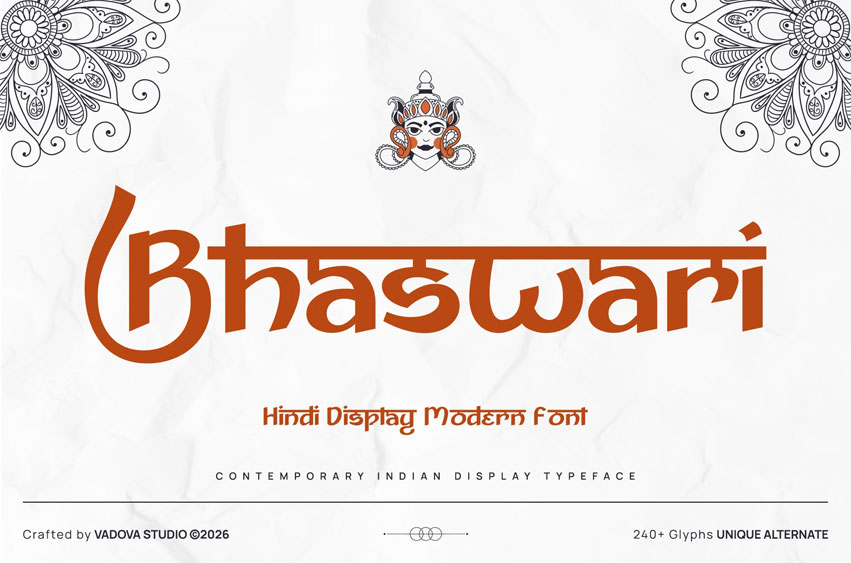
Bhaswari Font is a contemporary Hindi display typeface inspired by traditional Indian letterforms and refined with a modern typographic approach. Designed to balance cultural authenticity with clean structural clarity, The typeface includes uppercase, lowercase, alternates, making it versatile for both Hindi-focused and bilingual projects. With over 240+ glyphs and unique stylistic alternates, Bhaswari delivers expressive headline presence while maintaining readability.
Relevance and Uses Cases Bhaswari is highly relevant for Indian brands, cultural festivals, event organizers, wedding designers, spiritual branding, restaurant identities, ethnic packaging, editorial covers, and social media promotions. It is especially suitable for projects that require a modern yet culturally rooted Hindi aesthetic,
• Uppercase & Lowercase characters
• Alternate Support